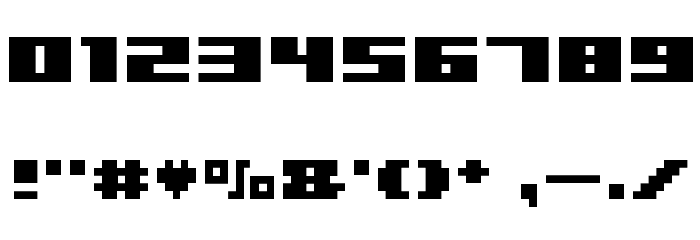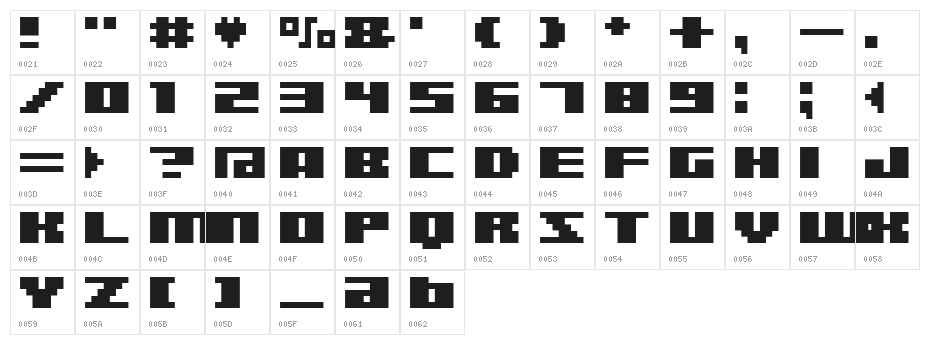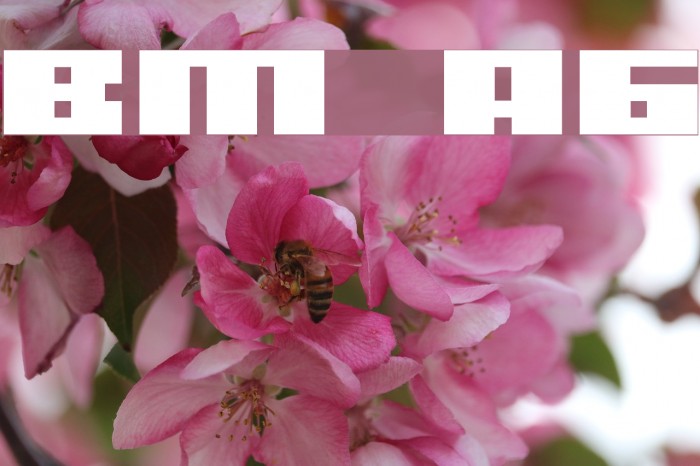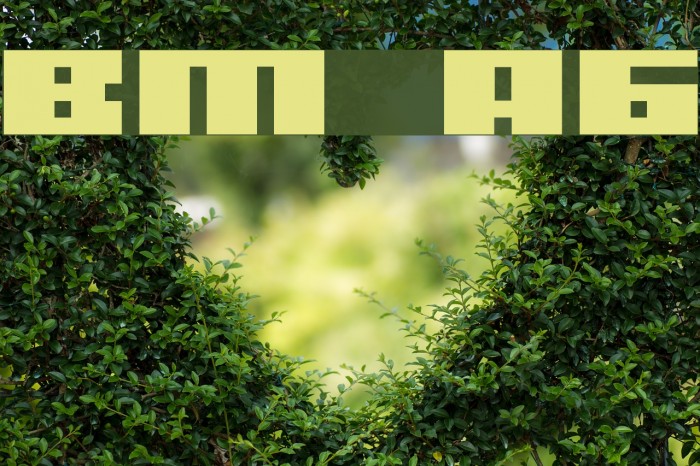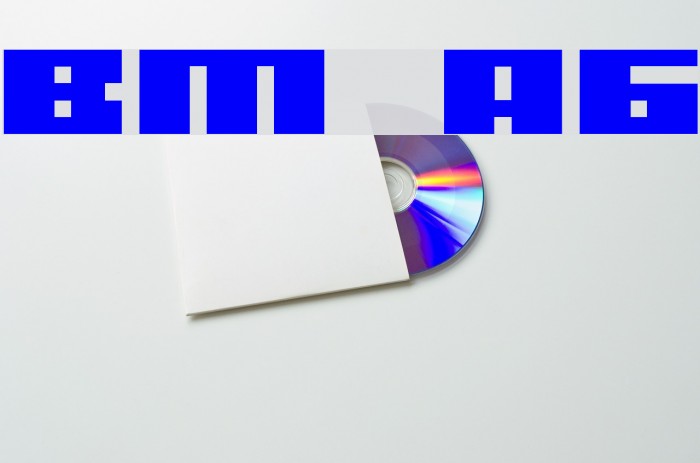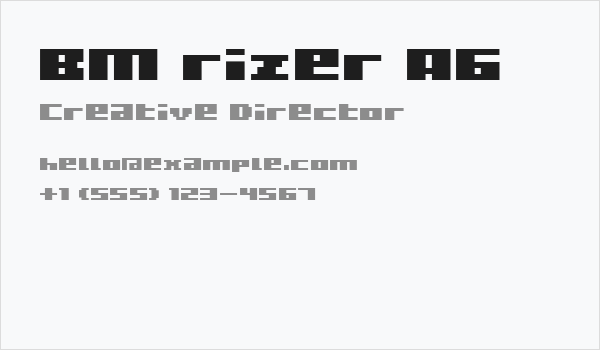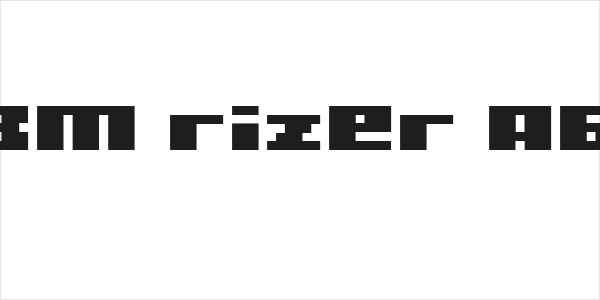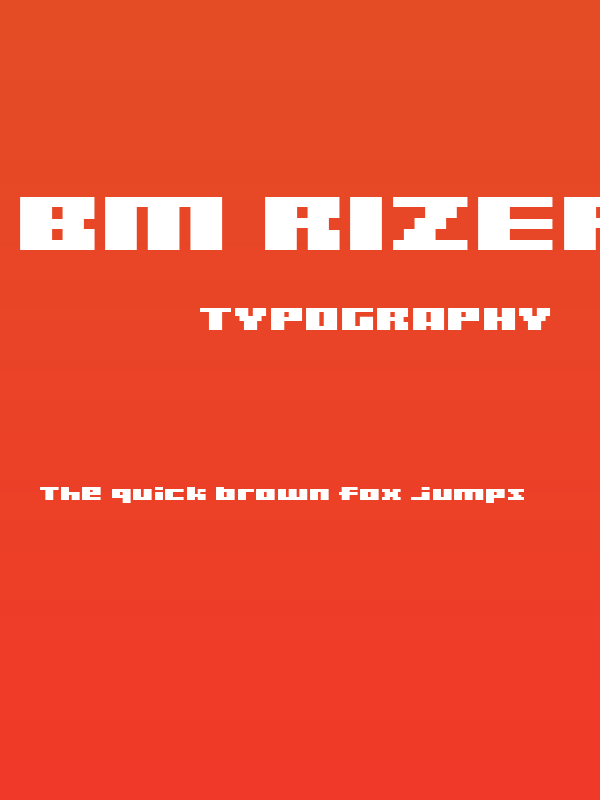
BM rizer A6 Font
BM rizer A6 Description
This font features a bold, geometric design with a pixelated appearance reminiscent of early digital or arcade-style typography. The characters are uniformly blocky, with sharp angles and a consistent thickness throughout. The uppercase and lowercase letters maintain a similar structure, emphasizing a cohesive and uniform look. The numerals and special characters follow the same design principles, ensuring a seamless integration across different text elements. This font's distinct style makes it ideal for projects that aim to capture a retro or digital aesthetic.